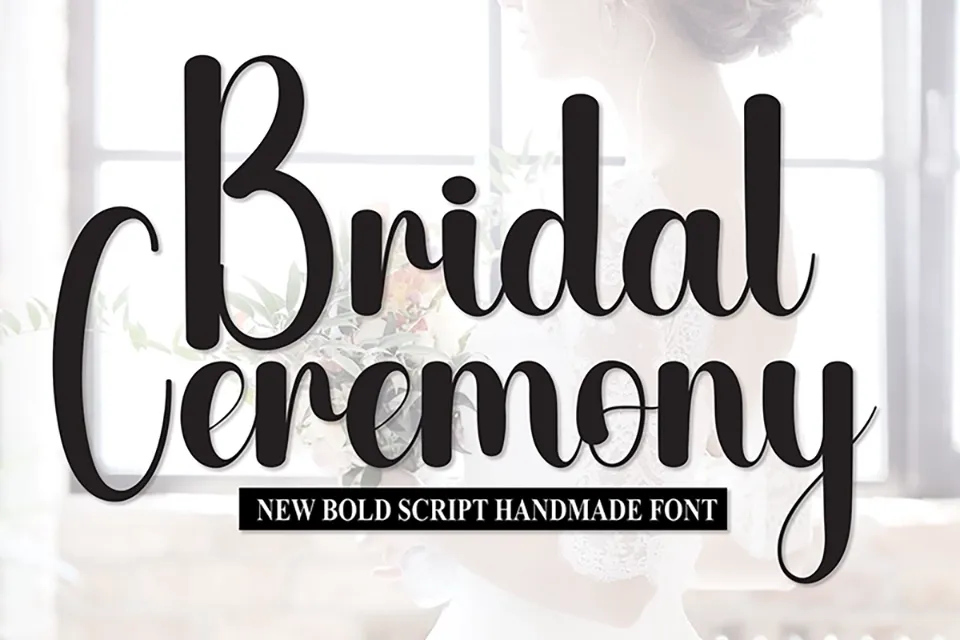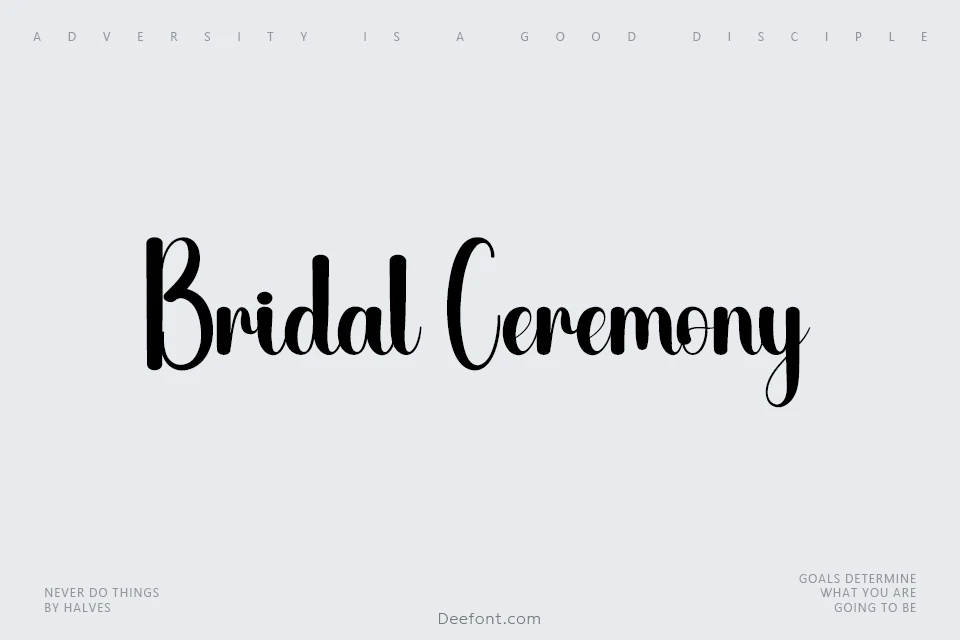
Bridal Ceremony Script Font
Bridal Ceremony Script Font is a sweet and friendly handwritten display font. Cute and fun, this font is ideal for writing wedding invitations, cards, or any other design that might need a playful touch! Its modern calligraphy style brings elegance and charm to your creative projects, making it a perfect choice for bridal and romantic themes.